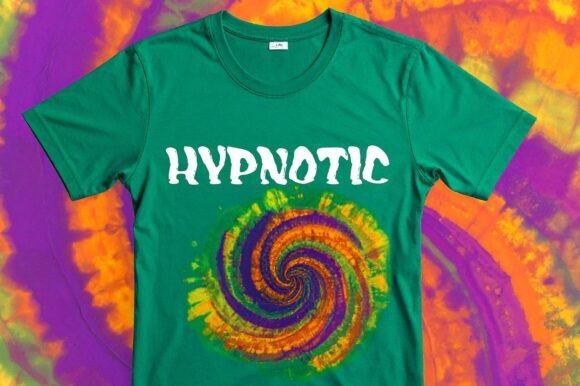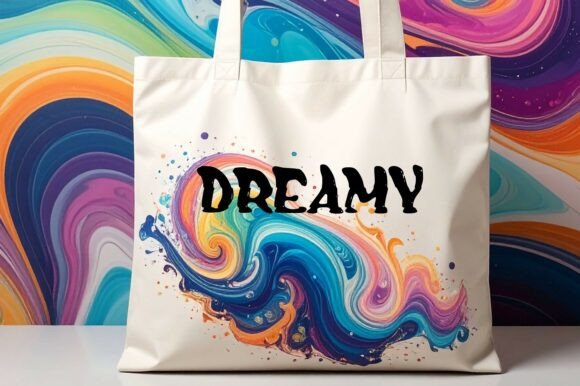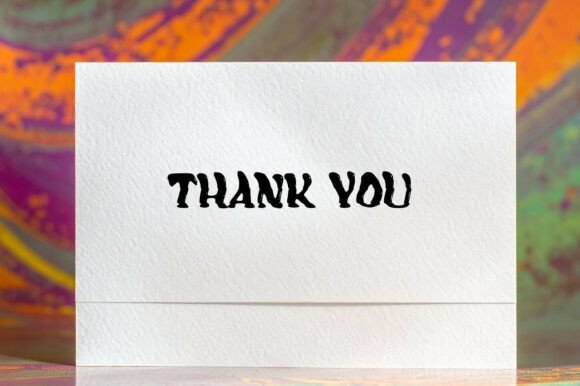
Unleash Your Creativity with Camkan Font: The Ultimate Display Font for Vibrant Designs
Are you tired of using the same old fonts that fail to capture the essence of your design? Look no further than Camkan, a vibrant display font that embodies the energetic spirit and expressiveness of youth. With its buoyant, fluid strokes and captivating characters, Camkan is the perfect choice for designers and crafters looking to add a playful touch to their work.
The Authenticity of Natural Penmanship
Camkan Font is fashioned with a unique blend of modern style and natural flair, mirroring the authenticity found in natural penmanship. The font’s gentle outlines emit a warm, welcoming allure, making it perfect for a wide range of design applications, from indie music album covers to streetwear brand emblems.
One of the standout features of Camkan is its dynamic tempo, displaying varied baseline undulations and a fascinating rise and fall that brings each word to life. This creates a sense of movement and energy, making your designs more engaging and attention-grabbing.
Legibility Meets Artistic Idiosyncrasies
While Camkan is undoubtedly an artistic font, it’s also been carefully crafted to ensure utmost legibility. The mindfully calculated spacing and complementary weightage ensure that your text remains clear and easy to read, even amidst its artistic idiosyncrasies.
This makes Camkan the perfect choice for designers who want to add a touch of personality to their work without sacrificing clarity. Whether you’re creating a logo, headline, or body text, Camkan is the perfect font to bring your design to life.
Infusing Playful Vitality into Your Designs
Camkan’s unique feature lies in its ability to infuse a playful vitality into the core of any design idea. Visualize this font casting vibrancy on an indie music album cover, injecting an urban chic into a streetwear brand emblem, or creatively customizing merchandise, including t-shirts, tote bags, and marketing posters.
With Camkan, the possibilities are endless. You can use it to:
- Create eye-catching headlines and titles that grab attention
- Add a touch of personality to your brand’s logo or emblem
- Design vibrant and engaging marketing materials, such as posters and flyers
- Customize merchandise, such as t-shirts, tote bags, and water bottles
Why Choose Camkan Font?
So why choose Camkan Font over other display fonts on the market? Here are just a few reasons:
- Unique and Authentic Style: Camkan’s natural, fluid strokes and captivating characters make it stand out from other fonts.
- High Legibility: Camkan’s careful spacing and weightage ensure that your text remains clear and easy to read.
- Versatile: Camkan can be used for a wide range of design applications, from logos and headlines to marketing materials and merchandise.
- Playful Vitality: Camkan infuses a playful energy into your designs, making them more engaging and attention-grabbing.